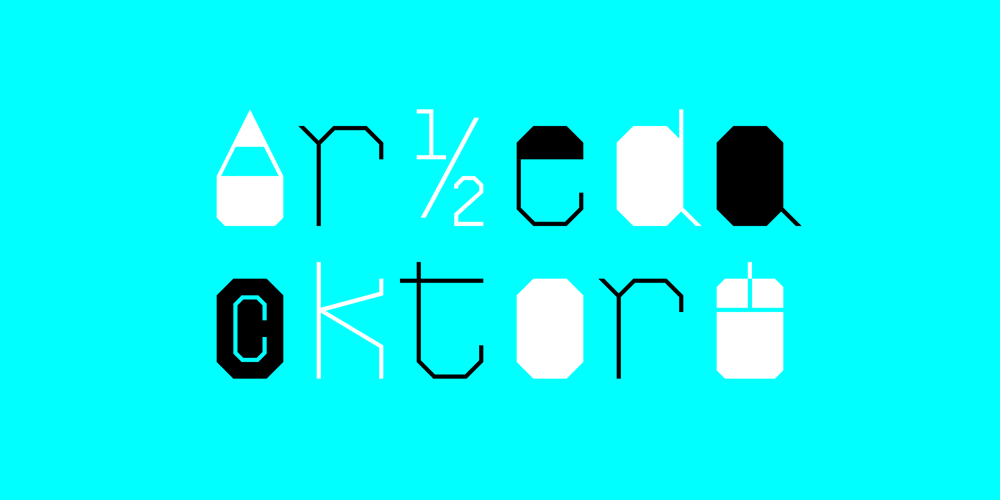
Redaktor
Redaktor font
Redaktor Font Family was designed by Jerz Stach and published by Spinefonts. Redaktor contains 4 styles and family package options. My friends didn’t use capitals when sending me text messages, e-mails and using all their digital toys. At the beginning, I was feeling ignored. But after time I thought, that… I can do something for them. And so, I’ve made Redaktor. Redaktor is a cute monospaced family of four fonts, which has only lowercase characters and large x-height. If you want to write an uppercase character, you can’t do it. (OK, to be fair, there will be small underline, just to show you, what you have done…) You may find Redaktor useful for posters, titling, info-graphics or websites.